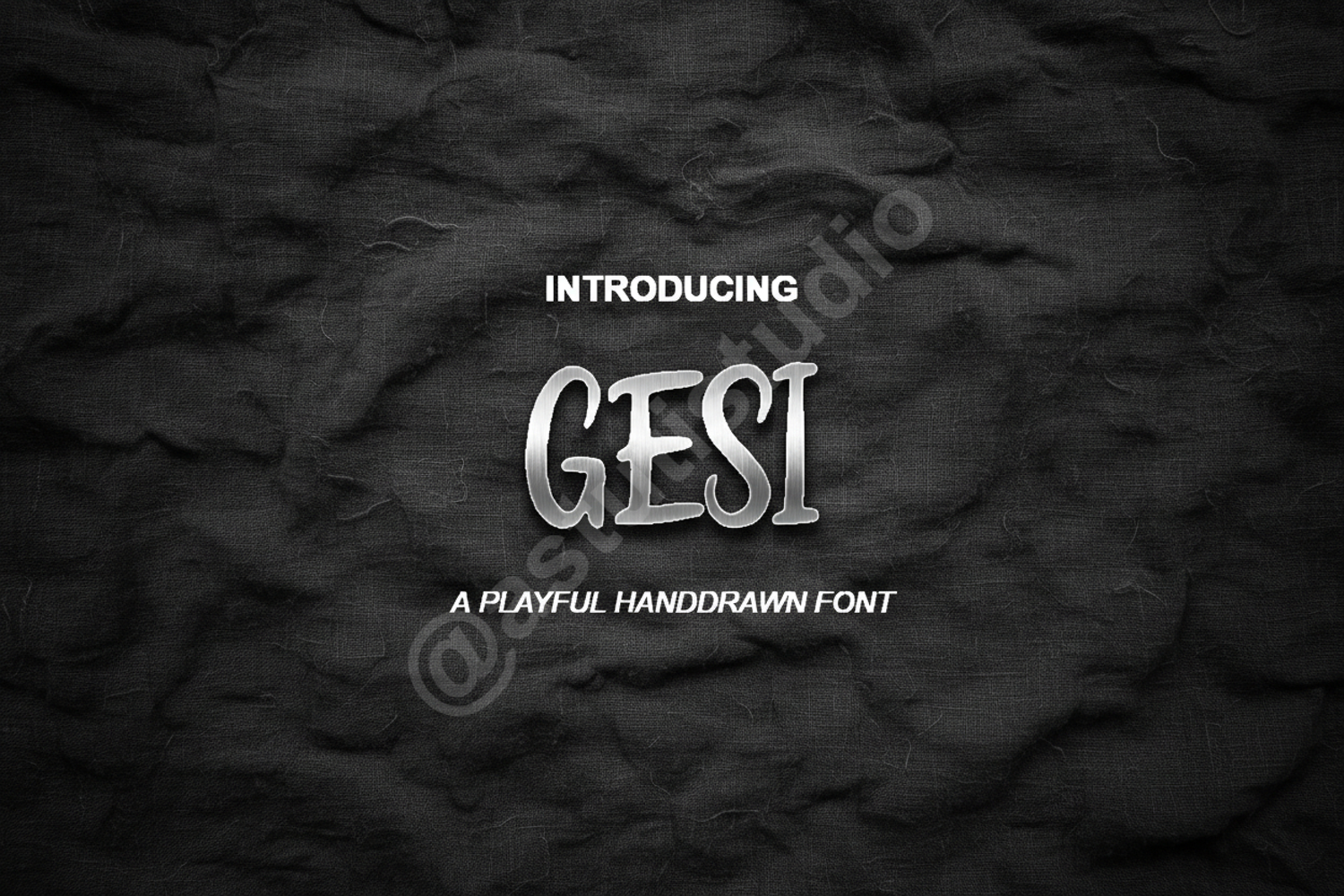
Gesi - Modern Minimalist Sans Serif
Gesi
Gesi is a sophisticated and versatile sans serif typeface meticulously crafted to bring a touch of modern elegance to your creative projects. With its clean lines and balanced proportions, this font offers a premium look that is both timeless and contemporary. Whether you are working on a high-end fashion brand or a sleek tech startup, Gesi provides the professional edge your designs deserve.
- Full set of uppercase and lowercase letters
- Numerals and standard punctuation
- Extensive multilingual support for global accessibility
- Branding and Identity: Create memorable logos and cohesive brand guidelines.
- Editorial Design: Perfect for magazine layouts, headers, and clean body text.
- Wedding Invitations: Add a modern, minimalist touch to premium stationery.
- Social Media: Elevate your Instagram quotes, stories, and Pinterest graphics.
- Web Design: Highly legible for user interfaces and digital content.